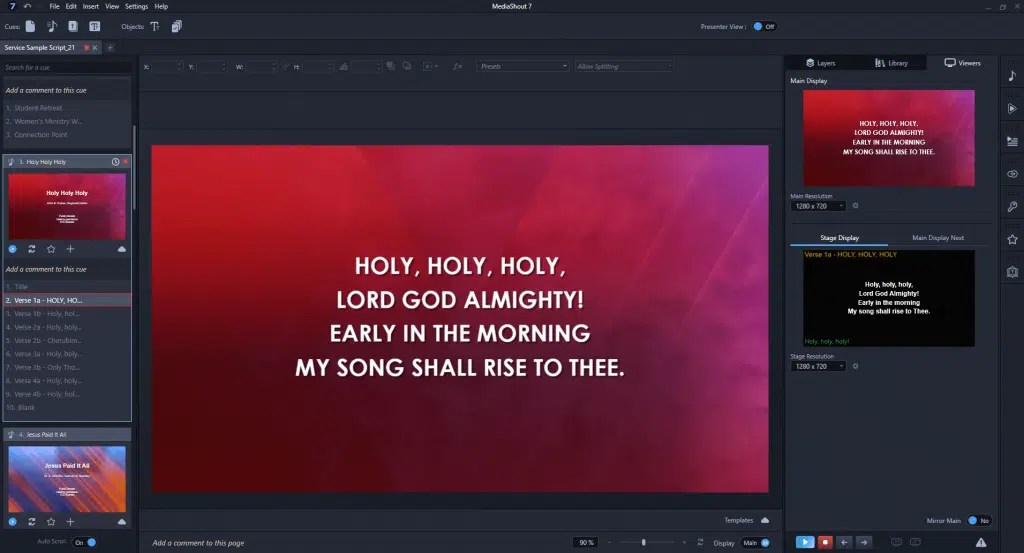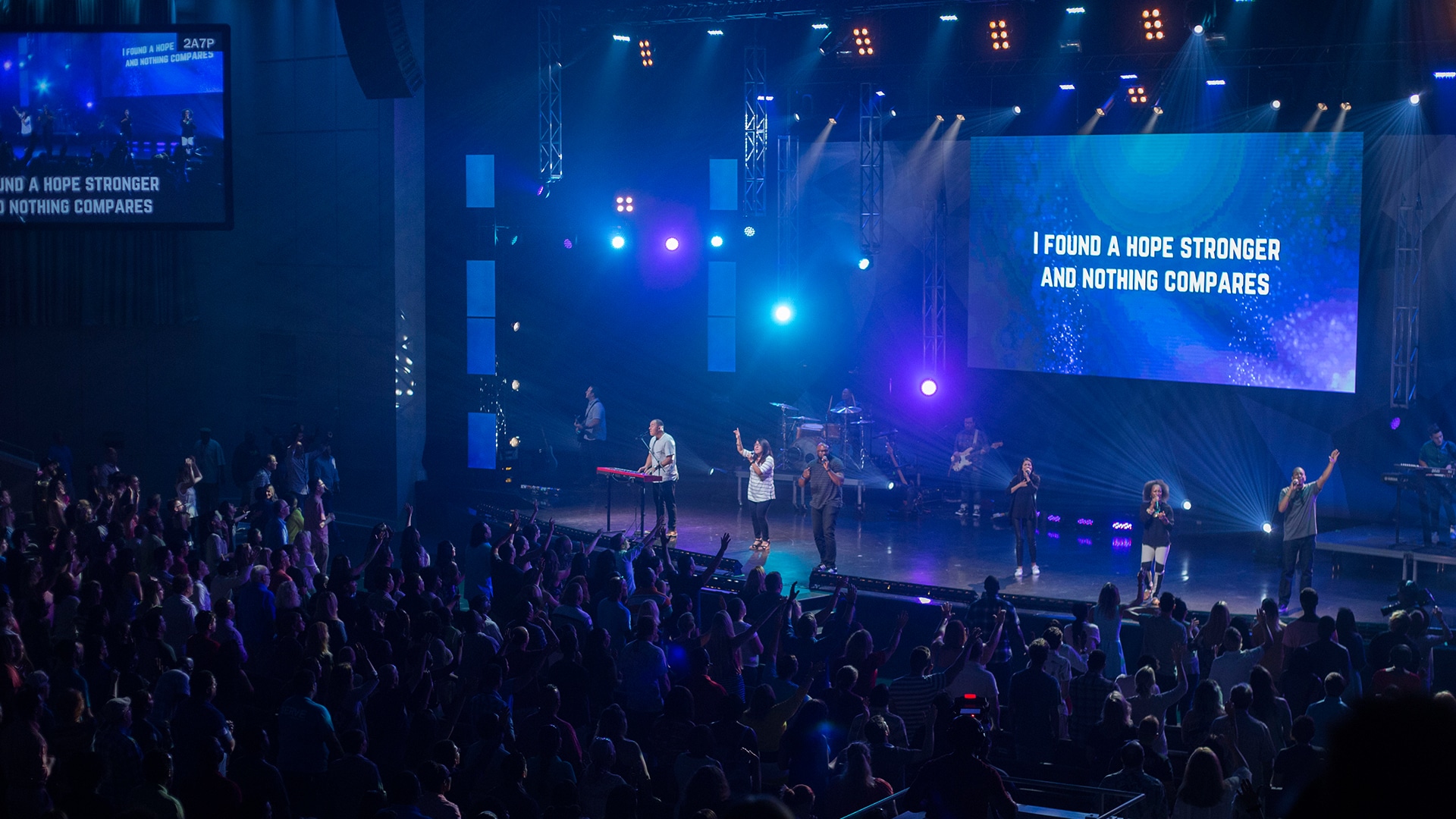
Best Font For Church Screen . One of the simplest ways to. They look clean and neat on your slides, plus they are what many people are used to seeing on. Sans serif fonts are by far the easiest typefaces to read for worship projection. You have many typefaces (fonts) to choose from when projecting lyrics during your church service, youth group or worship concert. The art of visual worship starts with the longing to ensure that every projected lyric and image is excellent and points the congregation towards god. You have many typefaces (fonts) to choose from when projecting lyrics during your church service, youth group or worship concert.
You have many typefaces (fonts) to choose from when projecting lyrics during your church service, youth group or worship concert. They look clean and neat on your slides, plus they are what many people are used to seeing on. Sans serif fonts are by far the easiest typefaces to read for worship projection. You have many typefaces (fonts) to choose from when projecting lyrics during your church service, youth group or worship concert. One of the simplest ways to. The art of visual worship starts with the longing to ensure that every projected lyric and image is excellent and points the congregation towards god.
Best Font For Church Screen You have many typefaces (fonts) to choose from when projecting lyrics during your church service, youth group or worship concert. You have many typefaces (fonts) to choose from when projecting lyrics during your church service, youth group or worship concert. You have many typefaces (fonts) to choose from when projecting lyrics during your church service, youth group or worship concert. They look clean and neat on your slides, plus they are what many people are used to seeing on. The art of visual worship starts with the longing to ensure that every projected lyric and image is excellent and points the congregation towards god. One of the simplest ways to. Sans serif fonts are by far the easiest typefaces to read for worship projection.
Old Church Font Best Font For Church Screen You have many typefaces (fonts) to choose from when projecting lyrics during your church service, youth group or worship concert. You have many typefaces (fonts) to choose from when projecting lyrics during your church service, youth group or worship concert. They look clean and neat on your slides, plus they are what many people are used to seeing on. Sans. Best Font For Church Screen.
18 MustHave Christian Fonts for Church Publications Pttrns Best Font For Church Screen They look clean and neat on your slides, plus they are what many people are used to seeing on. You have many typefaces (fonts) to choose from when projecting lyrics during your church service, youth group or worship concert. The art of visual worship starts with the longing to ensure that every projected lyric and image is excellent and points. Best Font For Church Screen.
Six Surprisingly Great Fonts To Use For Worship Lyrics The Creative Best Font For Church Screen One of the simplest ways to. You have many typefaces (fonts) to choose from when projecting lyrics during your church service, youth group or worship concert. They look clean and neat on your slides, plus they are what many people are used to seeing on. You have many typefaces (fonts) to choose from when projecting lyrics during your church service,. Best Font For Church Screen.
Six Surprisingly Great Fonts To Use For Worship Lyrics The Creative Best Font For Church Screen Sans serif fonts are by far the easiest typefaces to read for worship projection. One of the simplest ways to. You have many typefaces (fonts) to choose from when projecting lyrics during your church service, youth group or worship concert. You have many typefaces (fonts) to choose from when projecting lyrics during your church service, youth group or worship concert.. Best Font For Church Screen.
Choosing The Perfect Worship Slide Font Size CMG Church Motion Graphics Best Font For Church Screen Sans serif fonts are by far the easiest typefaces to read for worship projection. The art of visual worship starts with the longing to ensure that every projected lyric and image is excellent and points the congregation towards god. They look clean and neat on your slides, plus they are what many people are used to seeing on. You have. Best Font For Church Screen.
9 Easy to Read Fonts for Worship Presentation Software MediaShout Best Font For Church Screen The art of visual worship starts with the longing to ensure that every projected lyric and image is excellent and points the congregation towards god. You have many typefaces (fonts) to choose from when projecting lyrics during your church service, youth group or worship concert. You have many typefaces (fonts) to choose from when projecting lyrics during your church service,. Best Font For Church Screen.
Choosing the right font for the lyrics on your church’s screens can be Best Font For Church Screen You have many typefaces (fonts) to choose from when projecting lyrics during your church service, youth group or worship concert. You have many typefaces (fonts) to choose from when projecting lyrics during your church service, youth group or worship concert. Sans serif fonts are by far the easiest typefaces to read for worship projection. One of the simplest ways to.. Best Font For Church Screen.
20 Worship Fonts That are Absolutely Divine HipFonts Best Font For Church Screen You have many typefaces (fonts) to choose from when projecting lyrics during your church service, youth group or worship concert. Sans serif fonts are by far the easiest typefaces to read for worship projection. One of the simplest ways to. The art of visual worship starts with the longing to ensure that every projected lyric and image is excellent and. Best Font For Church Screen.